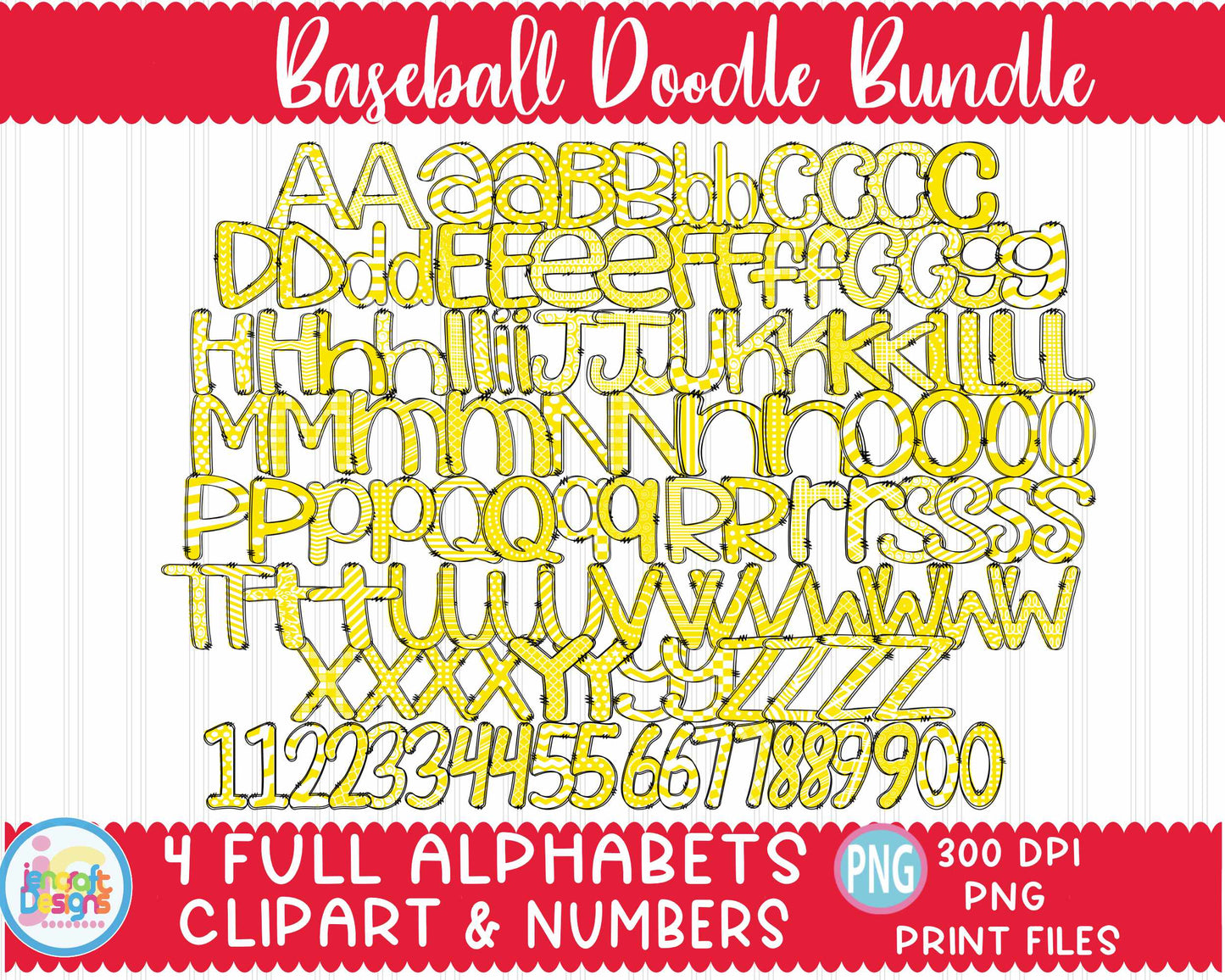
Baseball Doodle Letters PNG | Baseball Alphabet Sublimation Bundle
Step up to the plate with these fun Baseball Doodle Letters PNG Sublimation Bundle — a complete hand-drawn A–Z baseball-themed alphabet with numbers, perfect for makers creating personalized baseball shirts, tumblers, team gifts, and sports-themed projects. Each letter is saved individually for easy use. Exclusively designed by JenCraft.